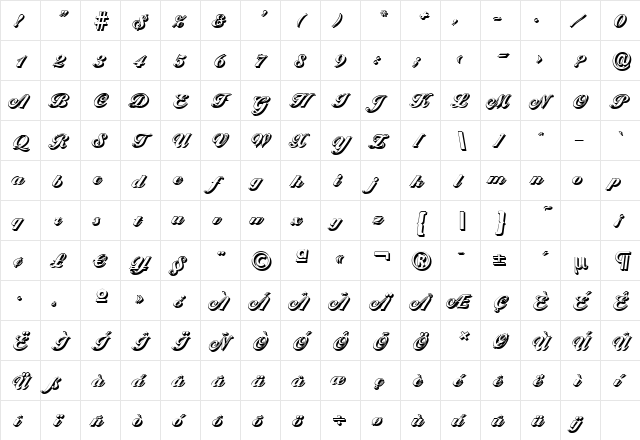
BallantinesShadow-Black is built around its visual character rather than neutral utility - its distinctive forms are designed to make an impression at display sizes.
Font Pairing: Pair with a clean neutral sans-serif for body copy to let BallantinesShadow-Black's character lead without overwhelming the composition.
Pro Tip: Use BallantinesShadow-Black exclusively at display sizes - it was designed to be seen, not read at length. Let a neutral companion handle body copy.